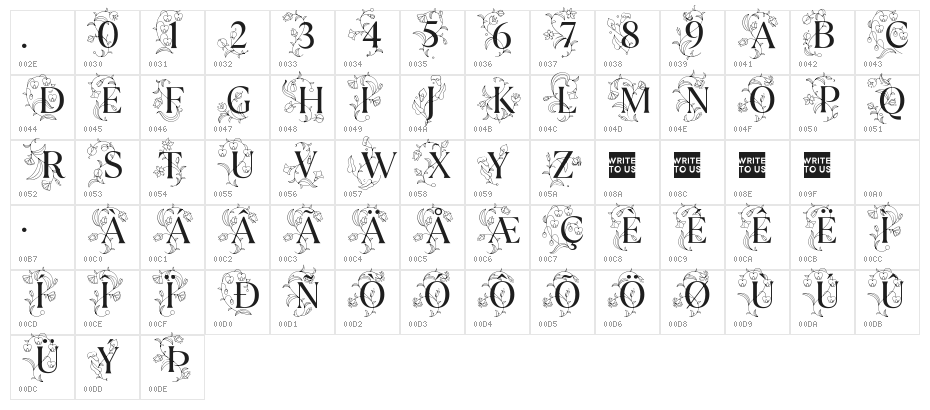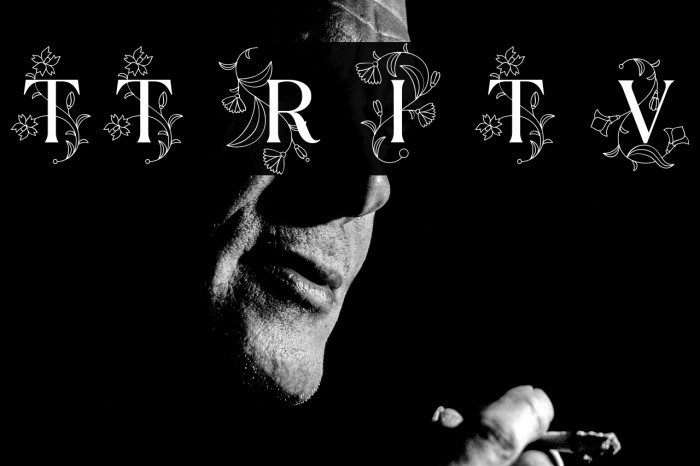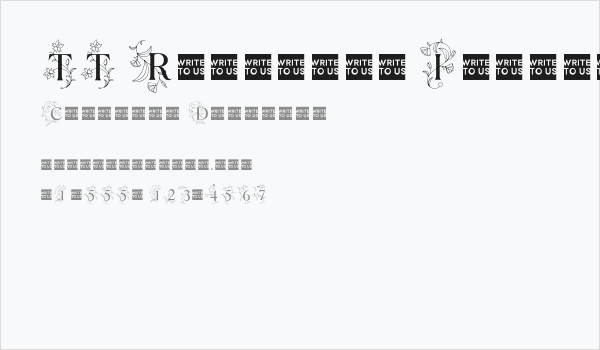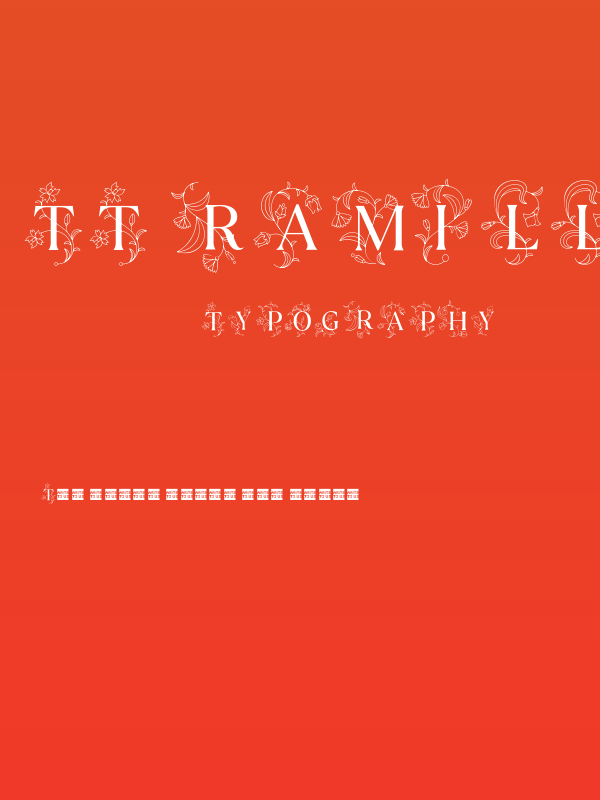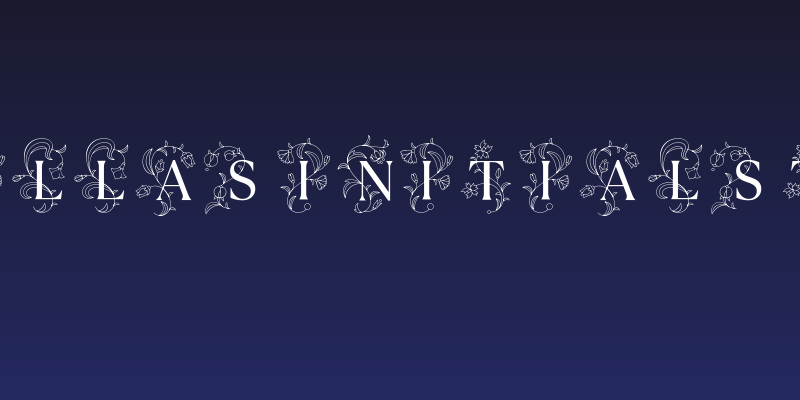
TT Ramillas Initials Trl Var Font
TT Ramillas Initials Trl Var Description
This font is a decorative and ornate typeface that features intricate floral and vine embellishments surrounding each character. The uppercase and lowercase letters, as well as numbers, are elegantly designed with a classic serif style, giving them a timeless and sophisticated appearance. The embellishments add a touch of nature and artistry, making each character stand out as a unique piece of art. This font is perfect for projects that require a luxurious and artistic touch, such as invitations, greeting cards, or branding materials that aim to convey elegance and creativity.
| Proposed Projects | Ideal for wedding invitations, luxury branding, artistic posters, and decorative book covers. |